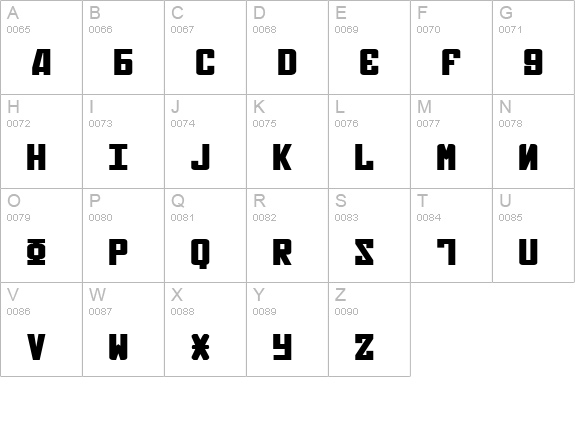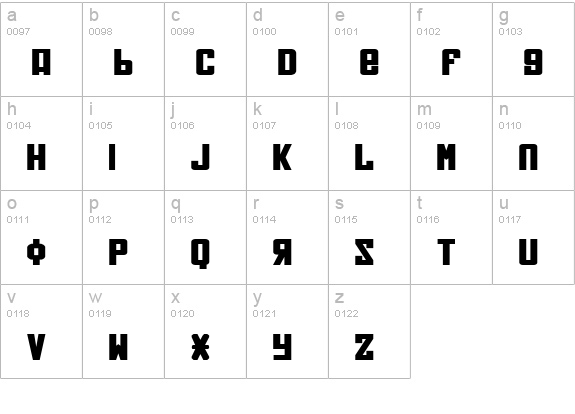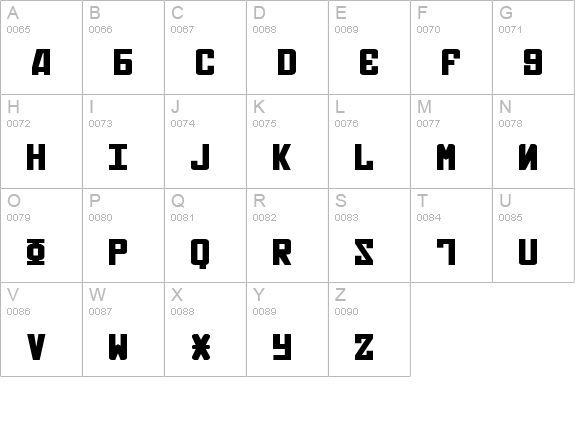
Soviet Bold Expanded is a strong, high-contrast, extended-width variant in the Soviet typeface family \xE2\x80\x94 well suited to headlines, attention-grabbing titles, and strong calls-to-action.
Introducing Soviet Bold Expanded, a striking and powerful typeface that exudes a sense of strength and dominance. With its bold and expanded letterforms, this font commands attention and makes a bold statement in any design project. Soviet Bold Expanded is the perfect choice for those seeking a font that embodies the boldness and resilience of the Soviet era. Its thick and robust letterforms create a sense of authority and evoke a feeling of nostalgia for a bygone era. This versatile font is ideal for a wide range of design applications, from posters and headlines to logos and branding. Its strong presence on the page ensures that your message will be delivered with impact and clarity. But what makes Soviet Bold Expanded truly exceptional is that it is freely available to download at FontsMarket.com. Yes, you read that right - this incredible font can be yours without any cost. Whether you're a professional designer or a casual enthusiast, you can now access this remarkable typeface and elevate your designs to new heights. So don't miss out on this opportunity to enhance your creative projects with the bold and captivating Soviet Bold Expanded font. Visit FontsMarket.com today and begin your journey towards creating visually stunning and impactful designs.